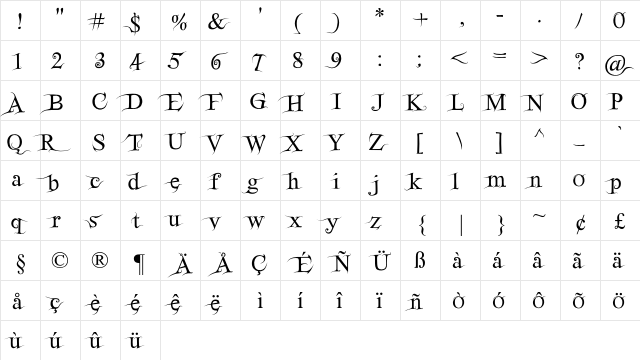
Fairydust Regular
| Designer | High-Logic - Erwin Denissen 1999 |
Design Context for Fairydust Typeface
Fairydust is a composed and adaptable typeface that performs quietly and consistently across a wide range of design contexts.